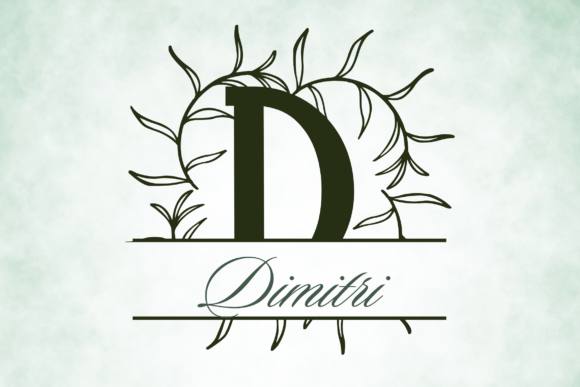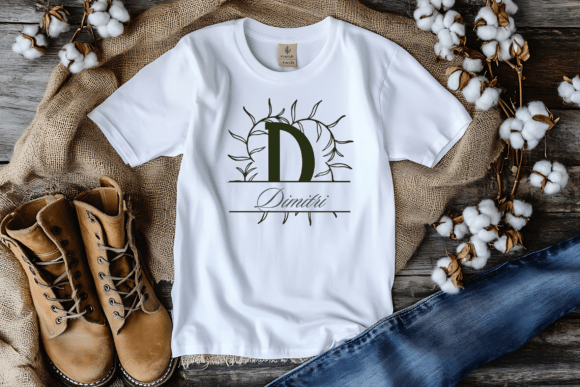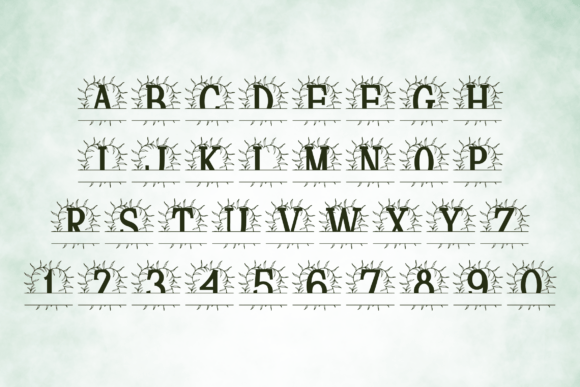
Introduction to Rosalith Split Monogram Font Font
Fonts play a crucial role in design, and the Rosalith Split Monogram Font font is a typeface that brings both character and versatility to any project. Whether you’re working on a branding project, a website, or a print design, the Rosalith Split Monogram Font font offers a unique style that can elevate your work.
Rosalith Split Monogram is an elegant serif font crafted for easy personalization.
Each uppercase letter features a clear horizontal split that opens space for names, dates, or short phrases The letterforms keep Rosalithβs rose-inspired poise and balanced proportions, so your custom text sits naturally inside a refined silhouette.
Key Features of Rosalith Split Monogram Font Font
Why Choose Rosalith Split Monogram Font Font?
The Rosalith Split Monogram Font font is more than just a typeface β it’s a design tool that helps you communicate your message with style and clarity. Its unique character set and versatile design make it suitable for a wide range of applications, from elegant invitations to bold headlines.
With its carefully crafted letterforms and balanced proportions, the Rosalith Split Monogram Font font ensures readability and visual appeal across all mediums.
What makes Rosalith Split Monogram Font font special?
The Rosalith Split Monogram Font font stands out with its unique design, exceptional readability, and versatility across various design applications.